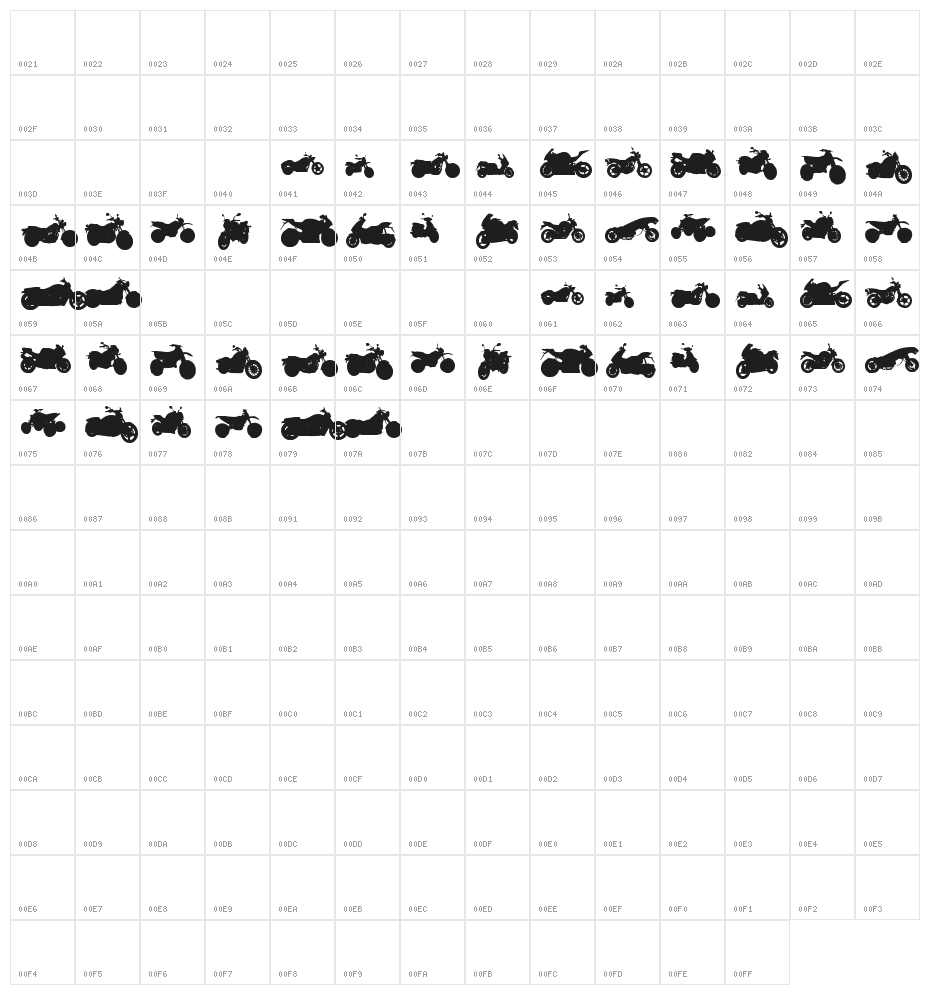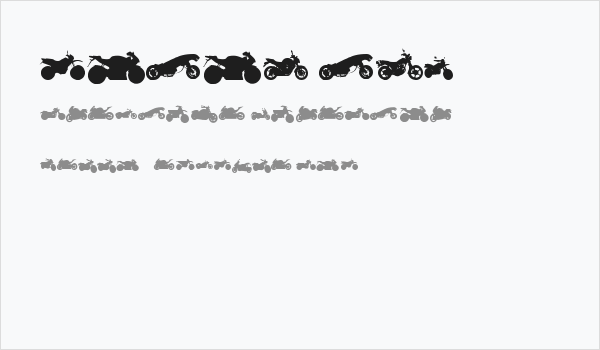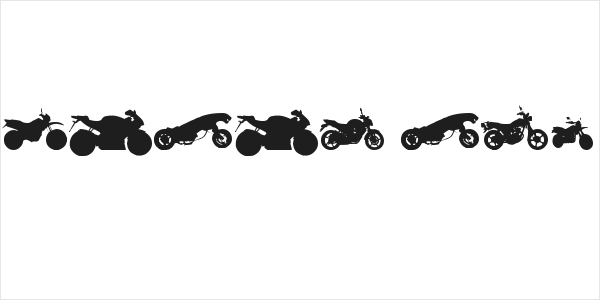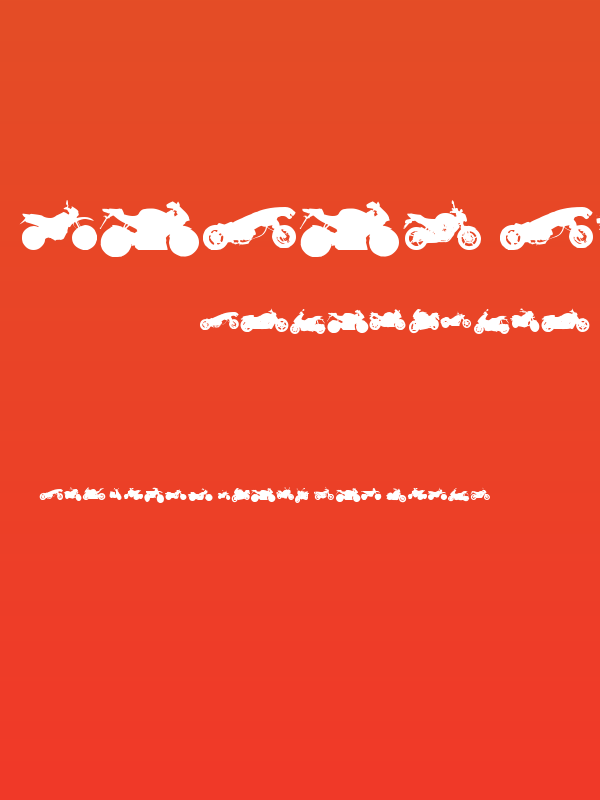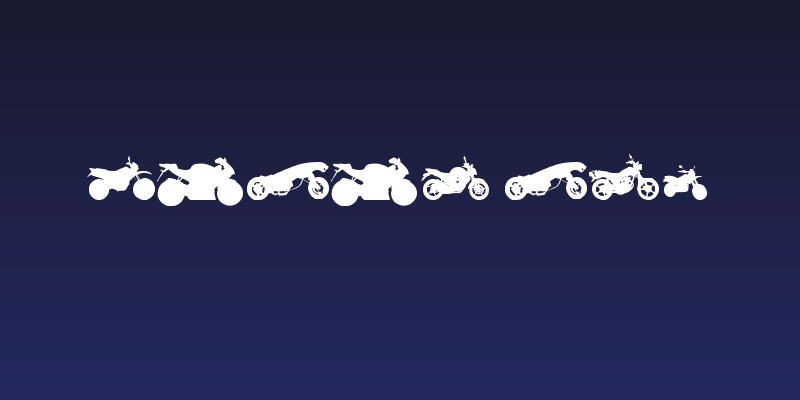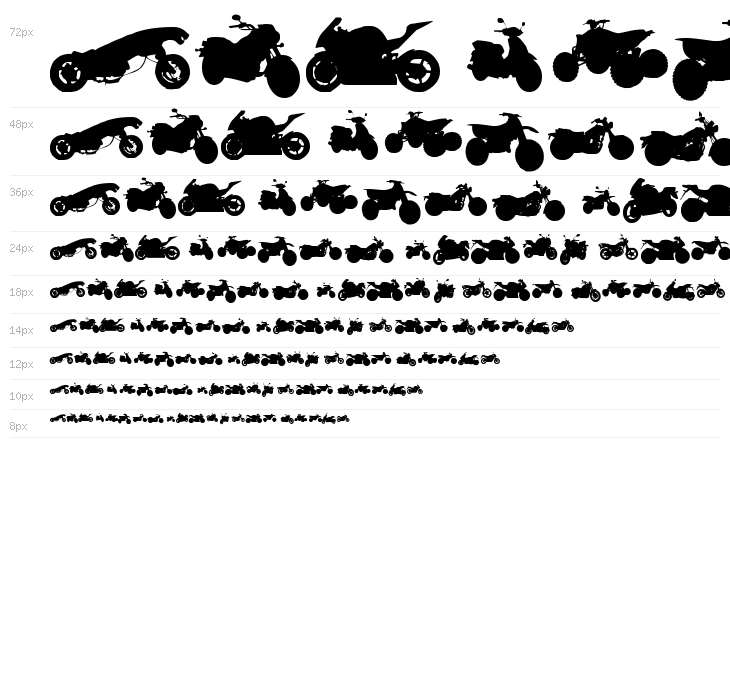
motos tfb Font
motos tfb Description
A decorative display font featuring detailed black silhouettes of various motorcycles and motorbikes for each character, with each glyph representing a different vehicle in solid black.
| Use Case | Logos, Posters, Themed Graphics, Event Materials |
| Proposed Projects | Posters, event flyers, themed party invitations, automotive branding, custom stickers, and graphic design projects related to motorcycles. |